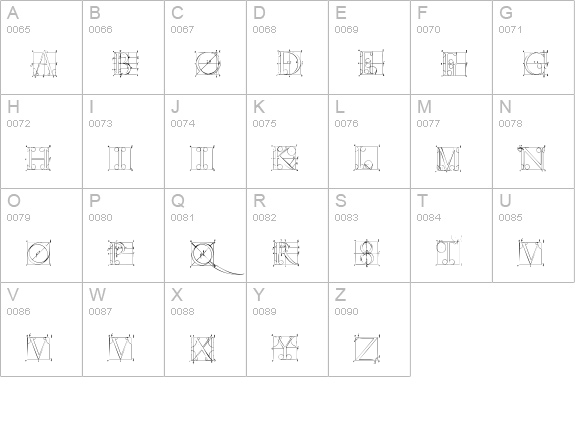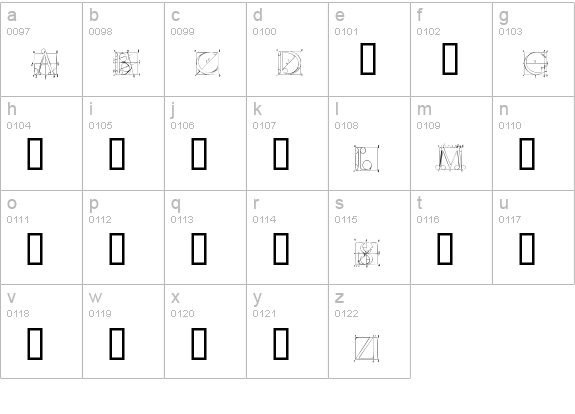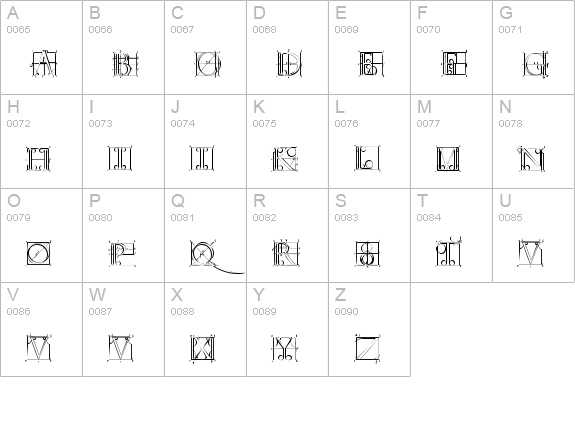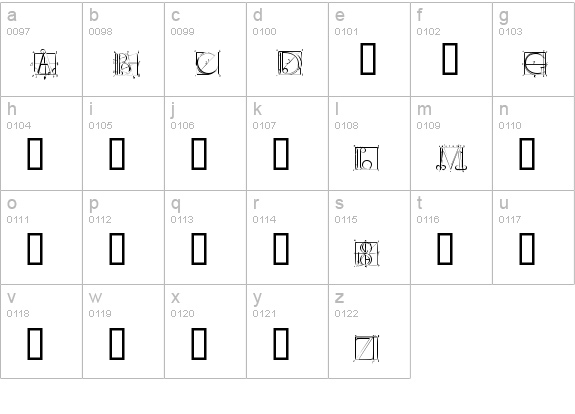
DuererLatinConstructionCapitals Font Details
DuererLatinConstructionCapitals font is a striking and elegant typeface that captures the essence of classical Roman architecture. With its clean lines and bold design, this font is perfect for adding a touch of sophistication to any project. The carefully crafted letterforms exude a sense of strength and stability, making it ideal for creating impactful headings and titles. This font is not only visually appealing but also versatile, suitable for a wide range of design applications including branding, editorial design, and signage. Its timeless appeal ensures that it will stand the test of time and remain a classic choice for designers seeking a timeless aesthetic. Best of all, DuererLatinConstructionCapitals font is available for free download at FontsMarket.com. So, whether you're a professional designer looking to add a new tool to your arsenal or a hobbyist seeking to elevate your projects, this font is a fantastic choice that won't break the bank. Download it today and let your creativity soar with this beautiful and impactful typeface.